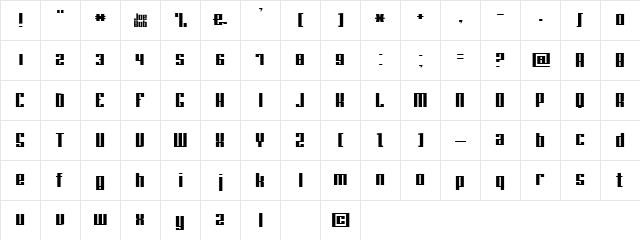
joeBob straight Regular Font Preview
joeBob straight Regular
joeBob straight Regular Font Details
Design Context for joeBob straight Typeface
joeBob straight is a composed and adaptable typeface that performs quietly and consistently across a wide range of design contexts.